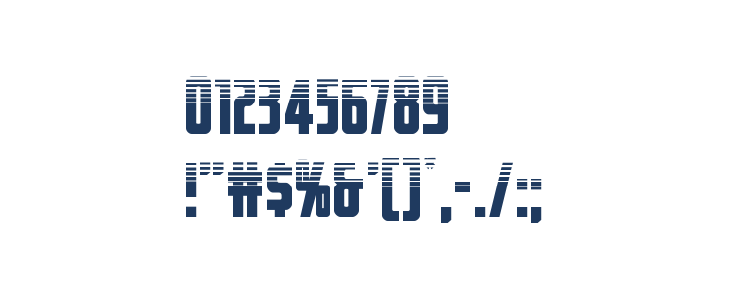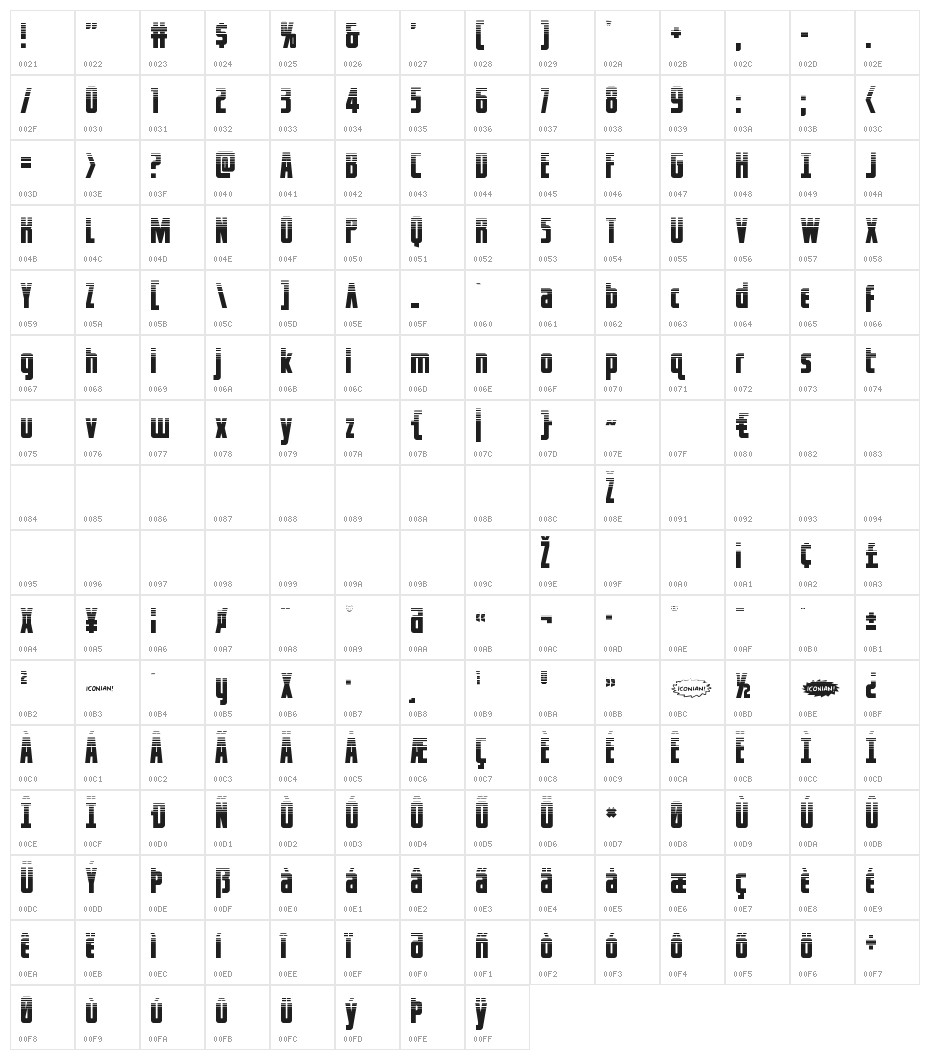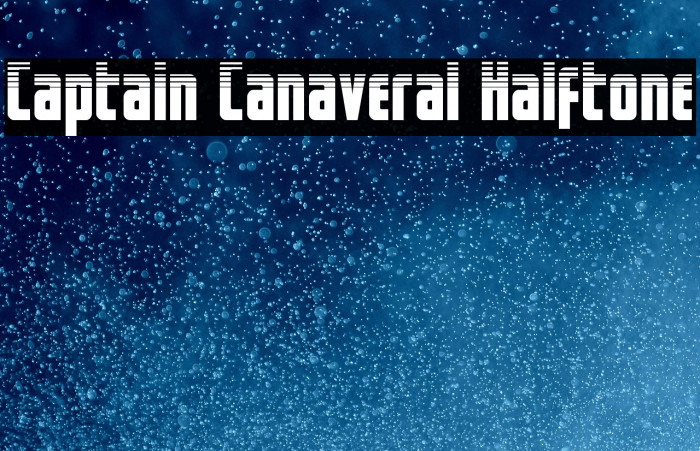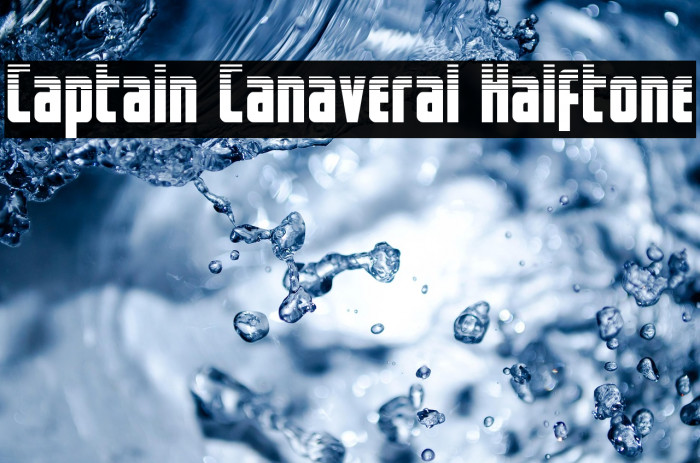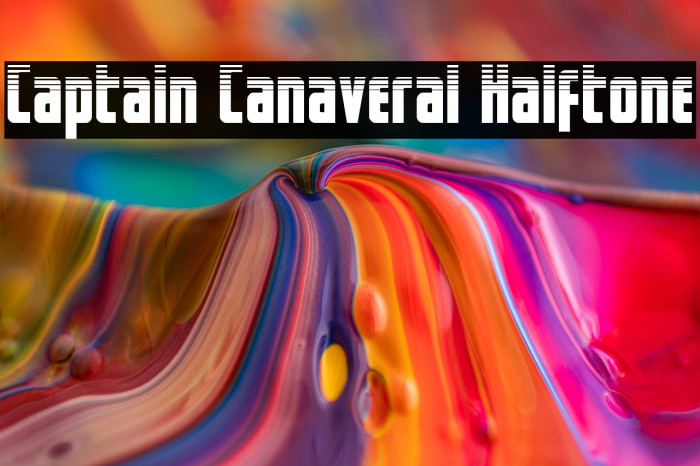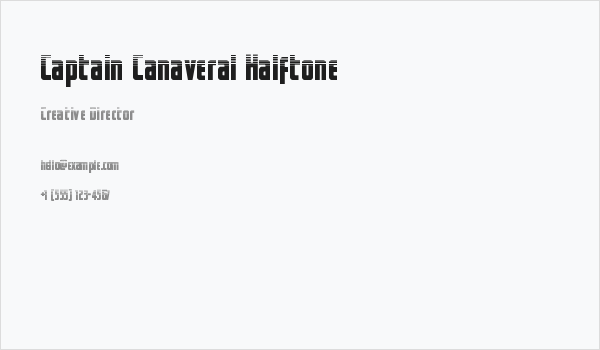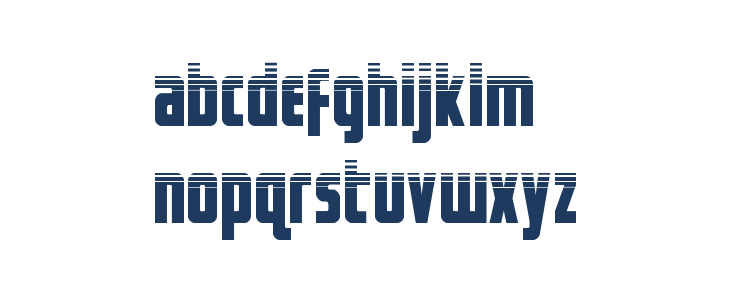
Captain Canaveral Halftone Font
Captain Canaveral Halftone Description
This font features a bold and striking design with a unique halftone effect that gives it a futuristic and dynamic appearance. The uppercase and lowercase letters are constructed with thick, solid strokes, while the top portions are adorned with horizontal lines that create a sense of movement and depth. The numerals and special characters follow the same design principles, ensuring consistency across all glyphs. The font's geometric structure and high contrast between the thick and thin elements make it highly legible and impactful, ideal for grabbing attention.
| Overall Style | Futuristic, Dynamic |
| Proposed Projects | Ideal for sci-fi themed posters, modern branding, video game titles, and any project requiring a bold, futuristic aesthetic. |